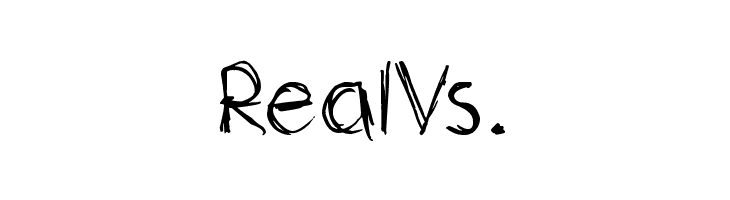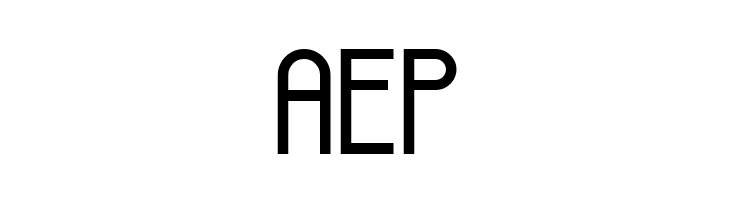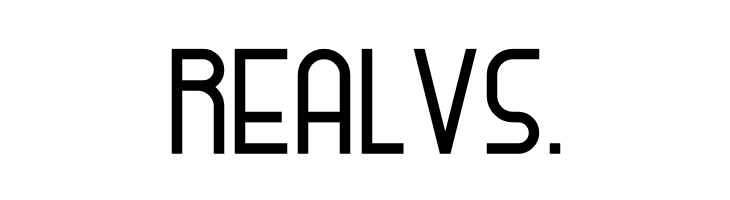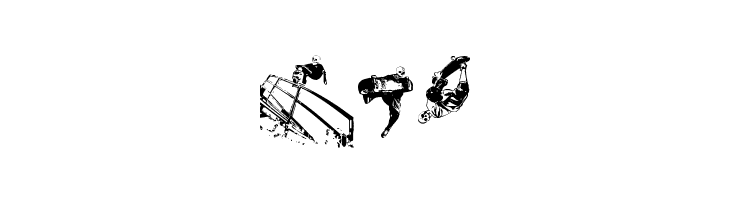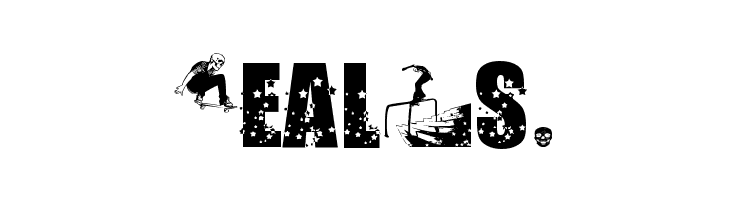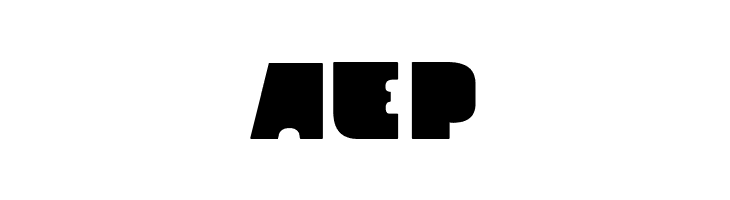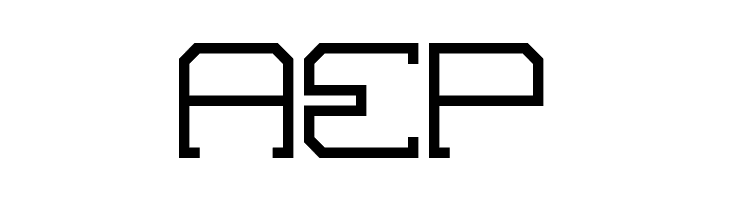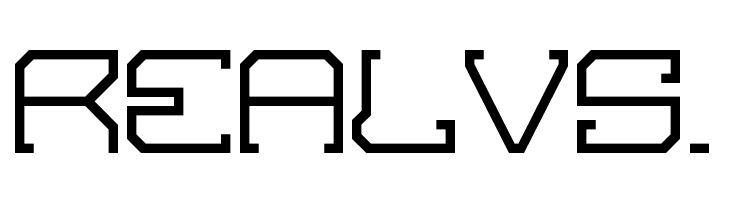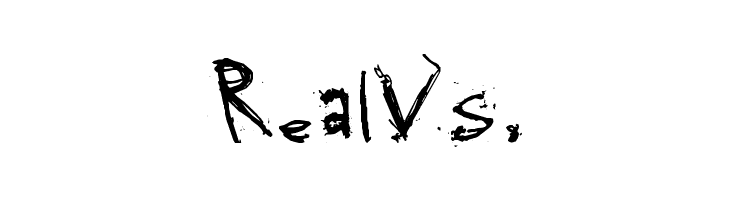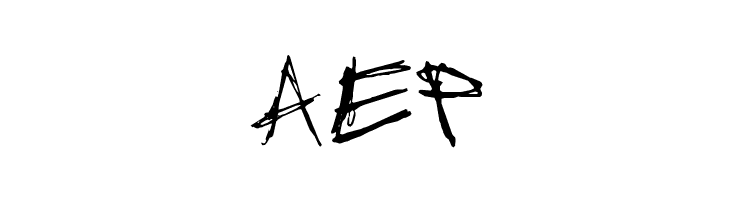
A decorative font with a cross-stitch pattern, ideal for creative projects.
A playful, handwritten font with smooth, rounded edges and a casual style.
A playful, handwritten font with a casual and dynamic style.
A bold, jagged, and distressed decorative font with a chaotic and intense style.
A casual, handwritten font with elongated, flowing letters.
A bold, hand-drawn font with a playful and energetic style.
A playful, hand-drawn font with a bold, cartoonish style.
A whimsical and elegant script font with decorative loops and swirls.
A bold, distressed font with a vintage, industrial feel.
A bold, distressed font with a stamped, grunge aesthetic.
A bold, distressed font with star cutouts, ideal for edgy designs.
Hand-drawn, skate-themed decorative font with playful illustrations.
Casual, hand-drawn font with a playful, skate-inspired style.
Hand-drawn, skateboarding-themed decorative font with playful illustrations.
A playful, sketch-like font with a hand-drawn, textured appearance.
A creative and eclectic display font with unique patterns and textures for each character.
A classic serif font with elegant lines and moderate contrast.
A playful 3D sketch-style font with bold, textured characters.
A playful, 3D sketch-style font with bold, hand-drawn characters.
A bold, sketch-style font with a playful, hand-drawn appearance.
A sketchy, hand-drawn font with a dynamic and energetic feel.
A hand-drawn, sketch-style font with dynamic, textured strokes.
A bold, distressed font with a grunge aesthetic and irregular edges.
A bold, geometric font with a mechanical, stencil-like design.
A modern, geometric font with tall, narrow characters and uniform strokes.
A modern, geometric font with tall, narrow characters and consistent stroke width.